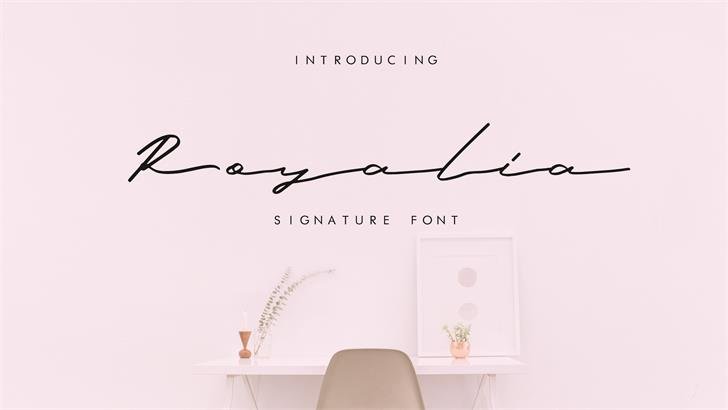
Royalia Signature Font
Introducing Royalia! It is designed by typefar. Royalia is a handwriting font suitable for business cards, calendars, watermarks and others. Perfect for invitations, stationary, business cards, blogs, web design, logos and advertisements. This is font demo. personal use only. i hope you like it.